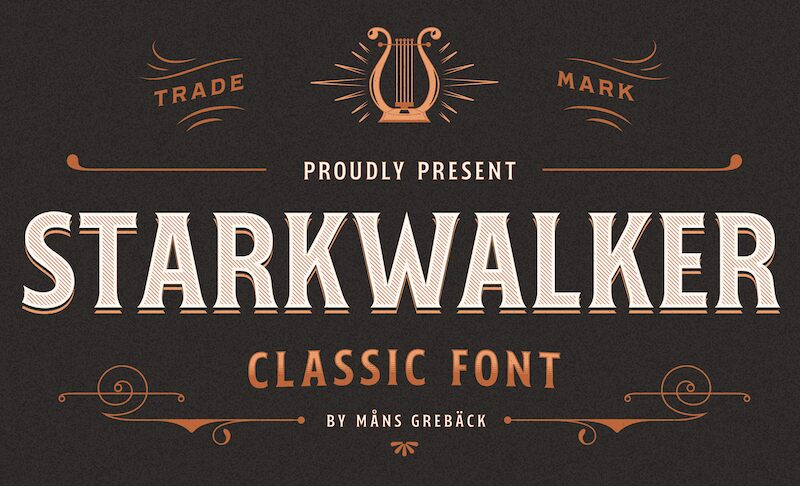
Starkwalker Classic PERSONAL Italic
Starkwalker Classic Italic font by Mans Greback is a free bold italic serif font. From the Starkwalker family, it solves a common design headache: getting retro warmth and sci‑fi edge in one voice. Heavy, forward-leaning letterforms with wedge serifs and slick, knife-cut terminals deliver a grounded, storefront pedigree while feeling aerodynamic and contemporary. The tight rhythm and sturdy counters hit hard in a headline without turning clunky.
Using Starkwalker Classic Italic, you can energize sci‑fi posters, game titles, tech branding, vintage packaging, event signage, streaming thumbnails, and album covers. This free font’s compressed drive and high-contrast strokes create instant impact and a memorable silhouette. Pair it with a clean grotesk or geometric sans for body copy, and let Starkwalker do the shouting at larger sizes with slightly tightened tracking.